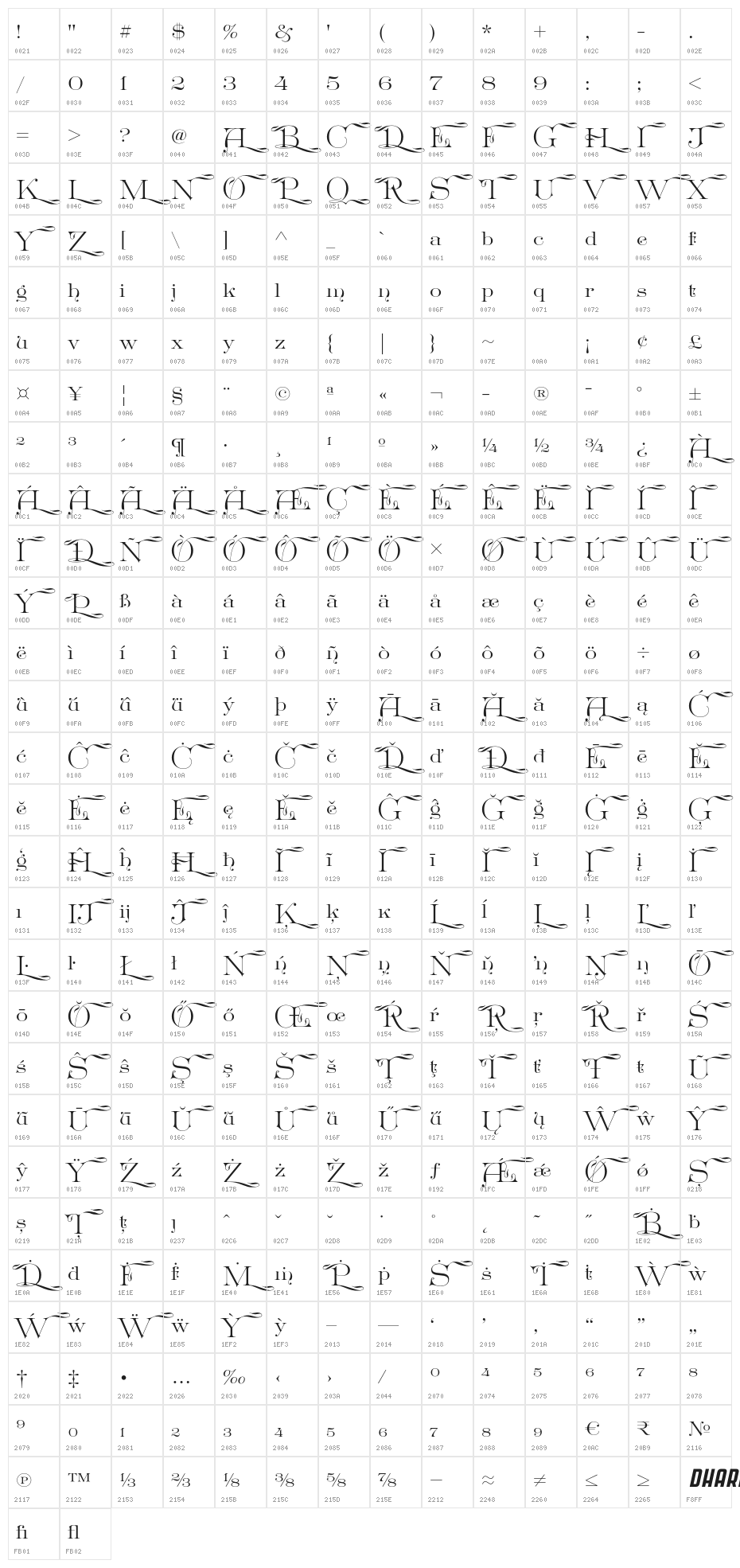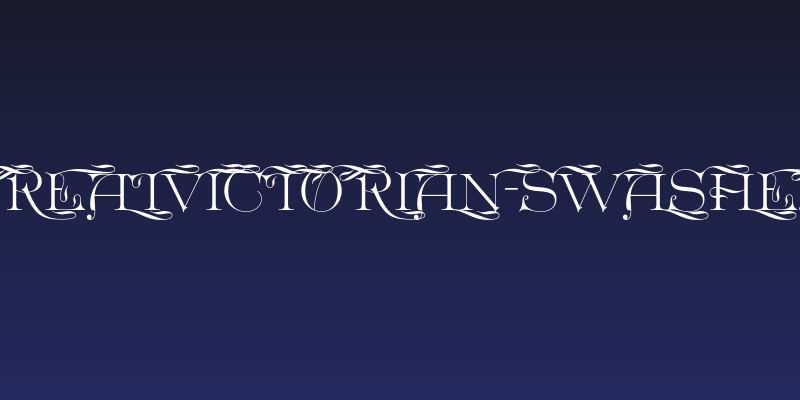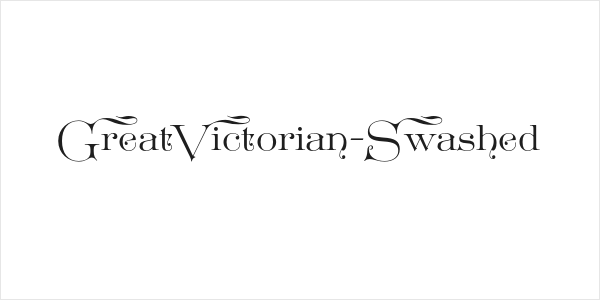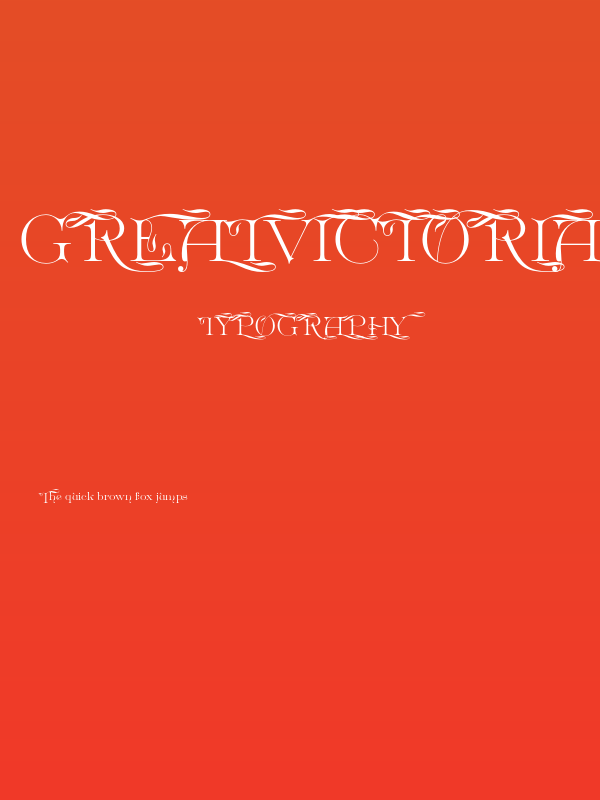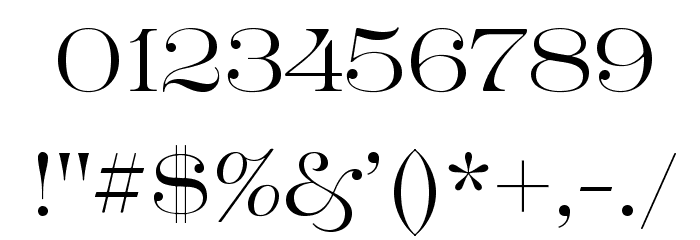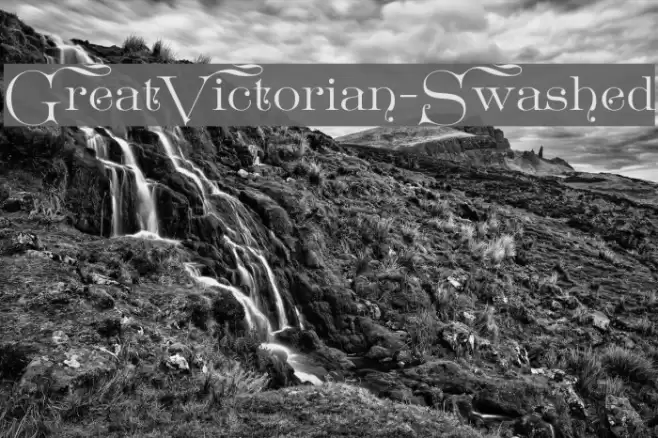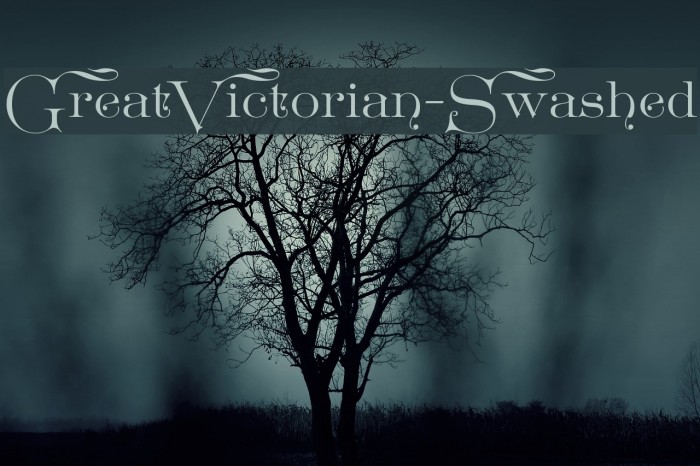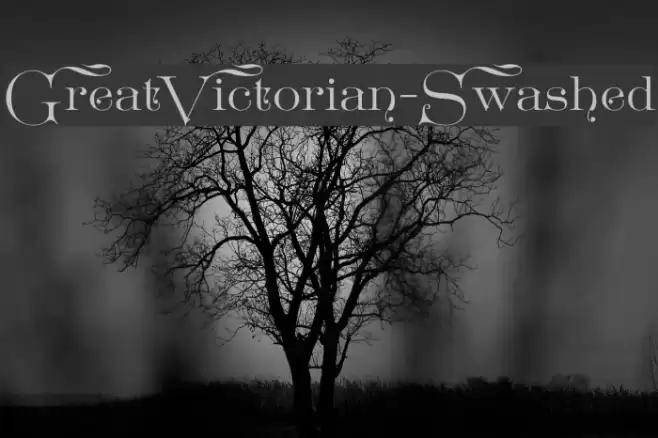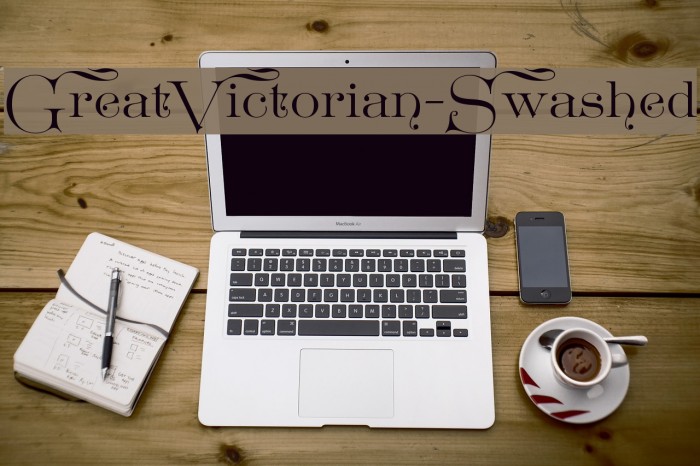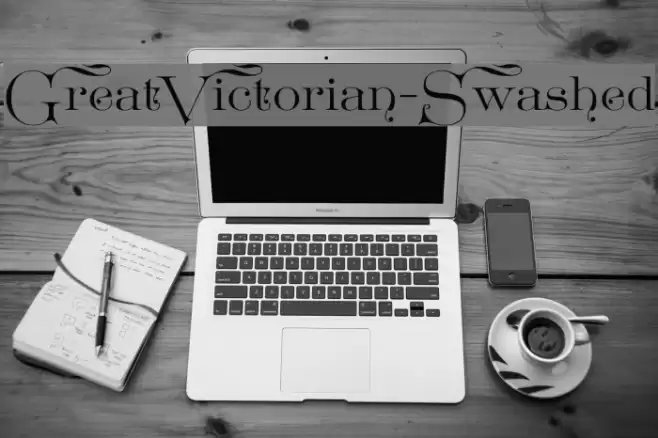
GreatVictorian-Swashed Font
GreatVictorian-Swashed Description
This font exudes a classic Victorian elegance with its ornate swashes and intricate detailing. The uppercase letters are particularly decorative, featuring elaborate flourishes that extend from the main strokes, creating a sense of grandeur and sophistication. The lowercase letters maintain a more restrained elegance, with subtle curves and a slightly condensed form that complements the uppercase. The numerals are clear and consistent, maintaining the decorative theme without sacrificing readability. Special characters are equally ornate, fitting seamlessly into the overall aesthetic. This font is perfect for projects that require a touch of vintage charm and sophistication.
| Width | Condensed |
| Overall Style | Vintage |
| Use Case | Logos, Headlines, Decorative text |
| Proposed Projects | Ideal for wedding invitations, vintage-themed branding, book covers, and decorative signage. |